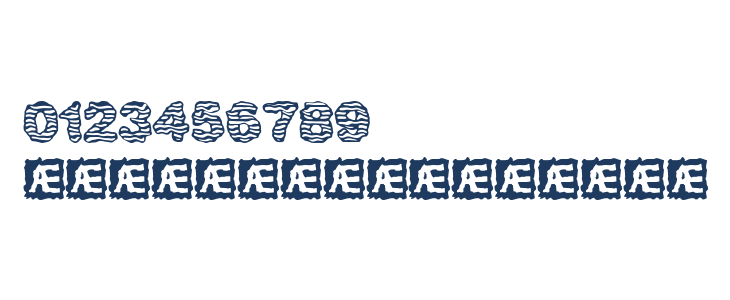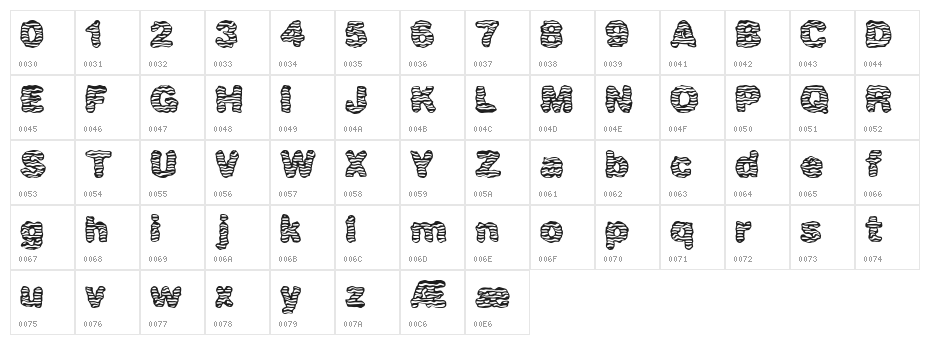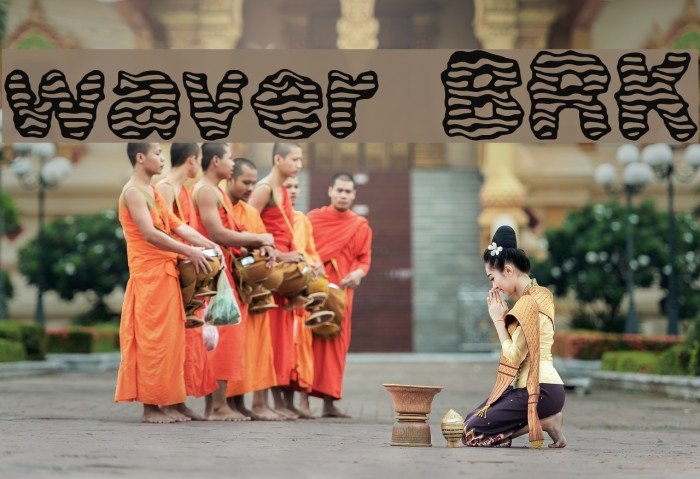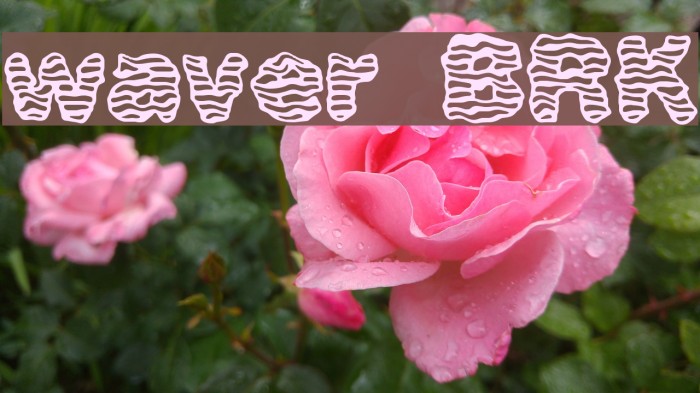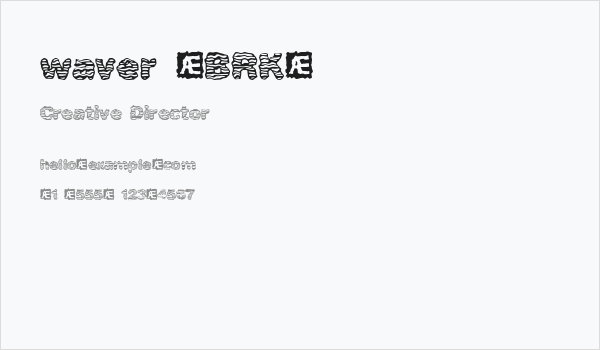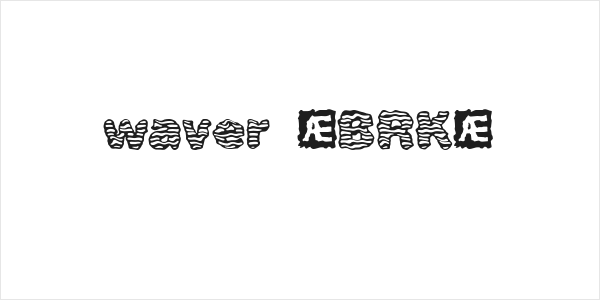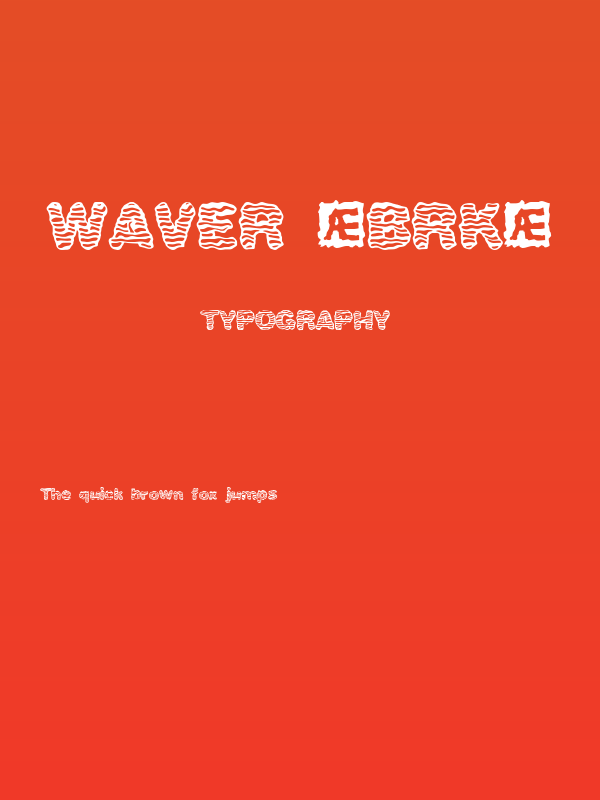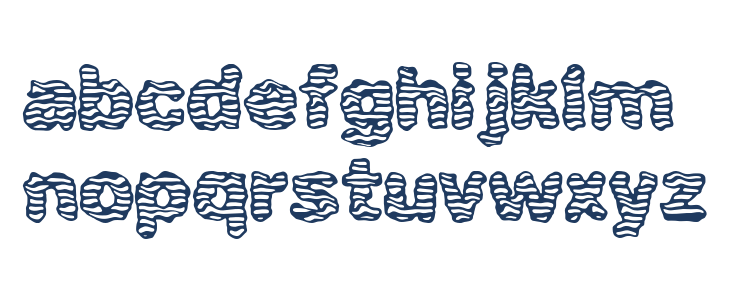
waver [BRK] Font
waver [BRK] Description
This font features a unique, wavy pattern that gives each character a dynamic and playful appearance. The letters are bold and have a three-dimensional effect, with lines that mimic the movement of waves. This creates a visually striking texture that stands out, making it ideal for creative and eye-catching designs. The uppercase and lowercase letters maintain consistency in style, while the numbers and special characters follow the same wavy pattern, ensuring uniformity across all elements. The font's design is both decorative and modern, offering a fresh take on traditional letterforms.
| Proposed Projects | Ideal for posters, logos, album covers, and any project requiring a bold, artistic touch. |